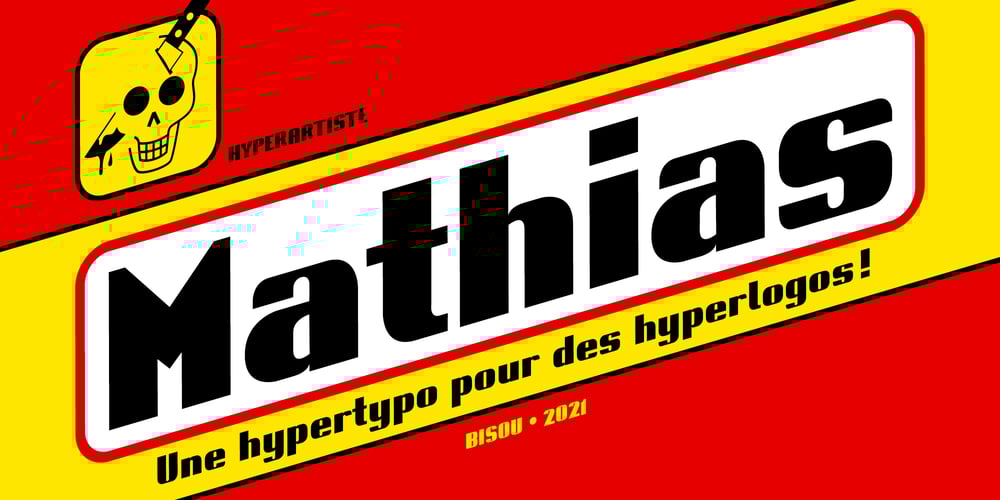
Mathias Font Family was designed by Mathias Antonietti and published by Bisou. Mathias contains 4 styles and family package options. Except doodling on your notebook, what a better occupation would you have while the teacher tries to explain physics on the blackboard ? Create an awesome font ? Mathias is a font created in class by a lazy designer named Mathias. The result is one of the most complete font made by Bisou. Mathias font is retro. It will catch the attention of the reader in a blink of an eye. Exclusively recommended for titles, this bold font will suite perfectly your company name on a big truck, your old school car spare parts sign, the logo for a brand of cigarettes, alcoholics or shoe polish.